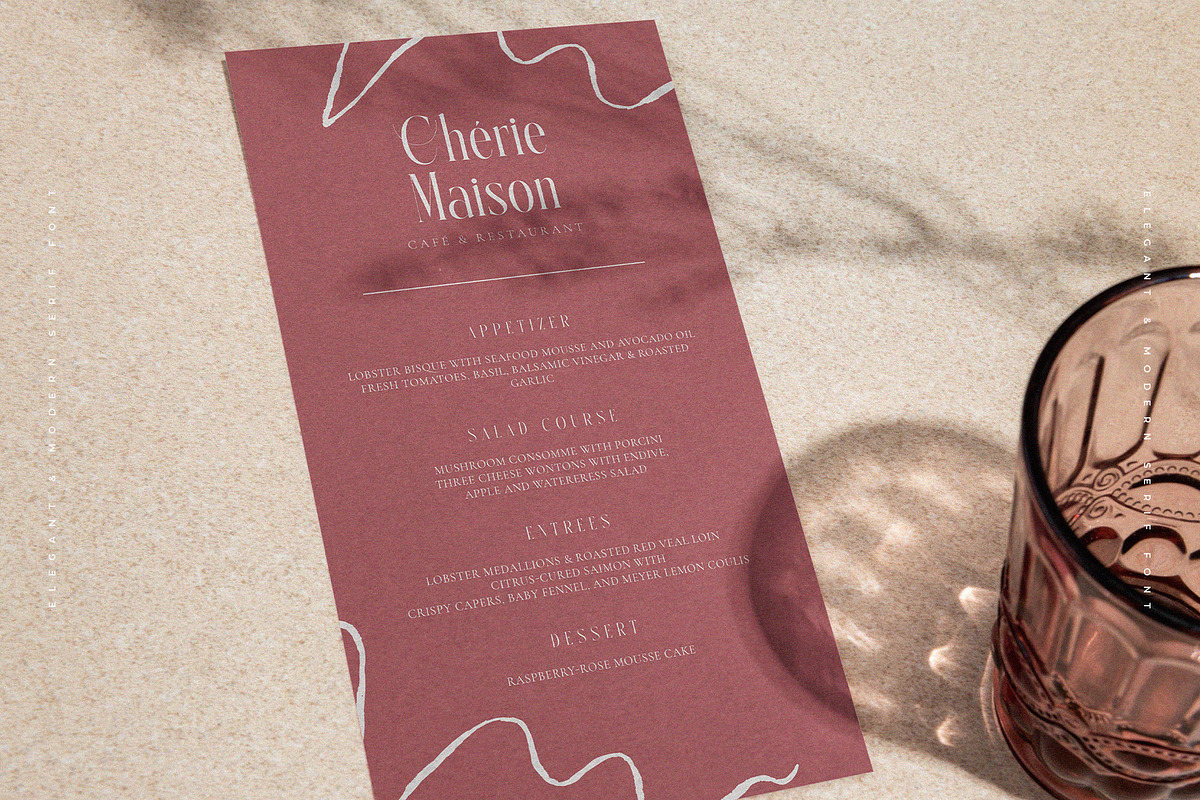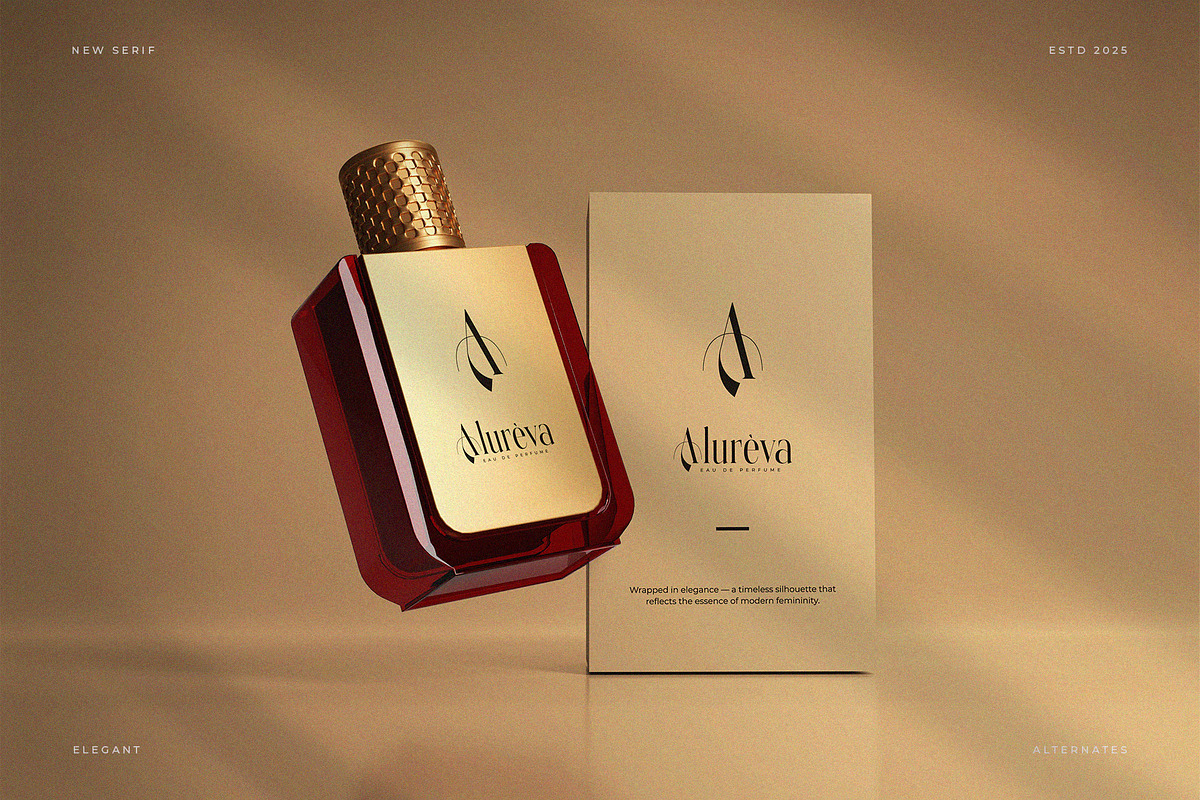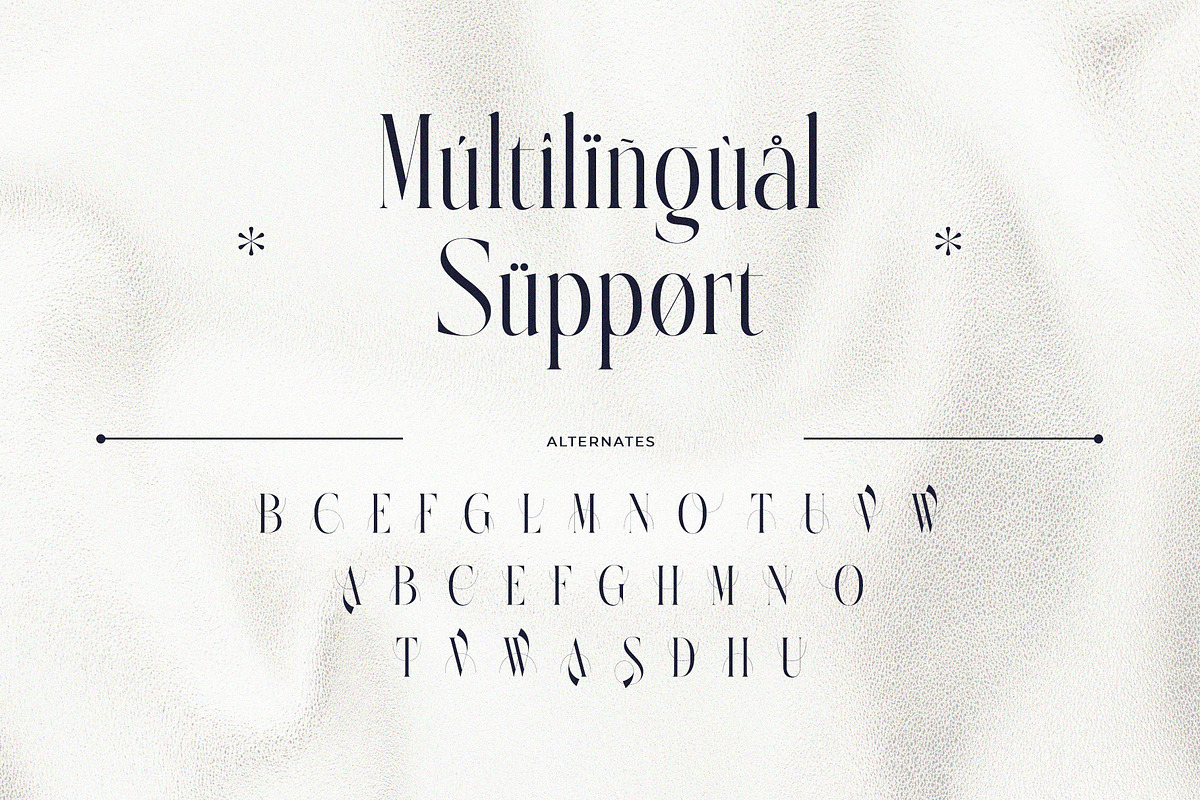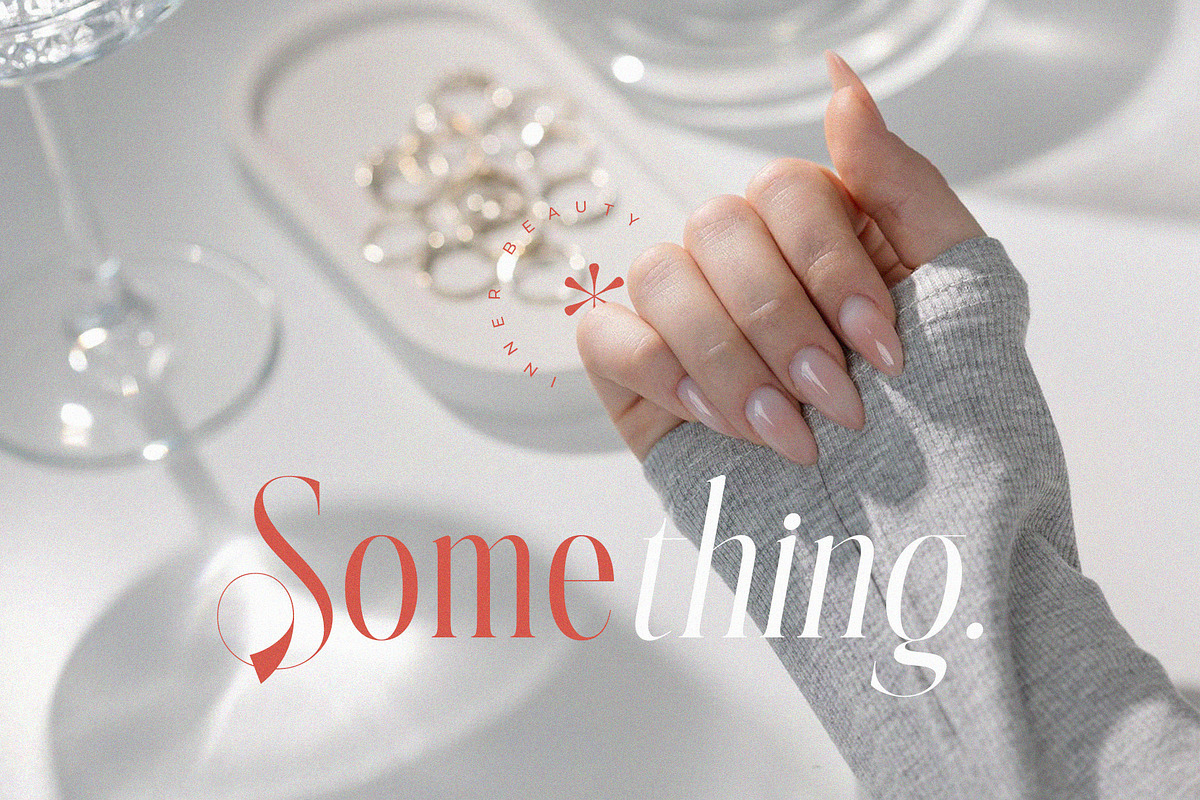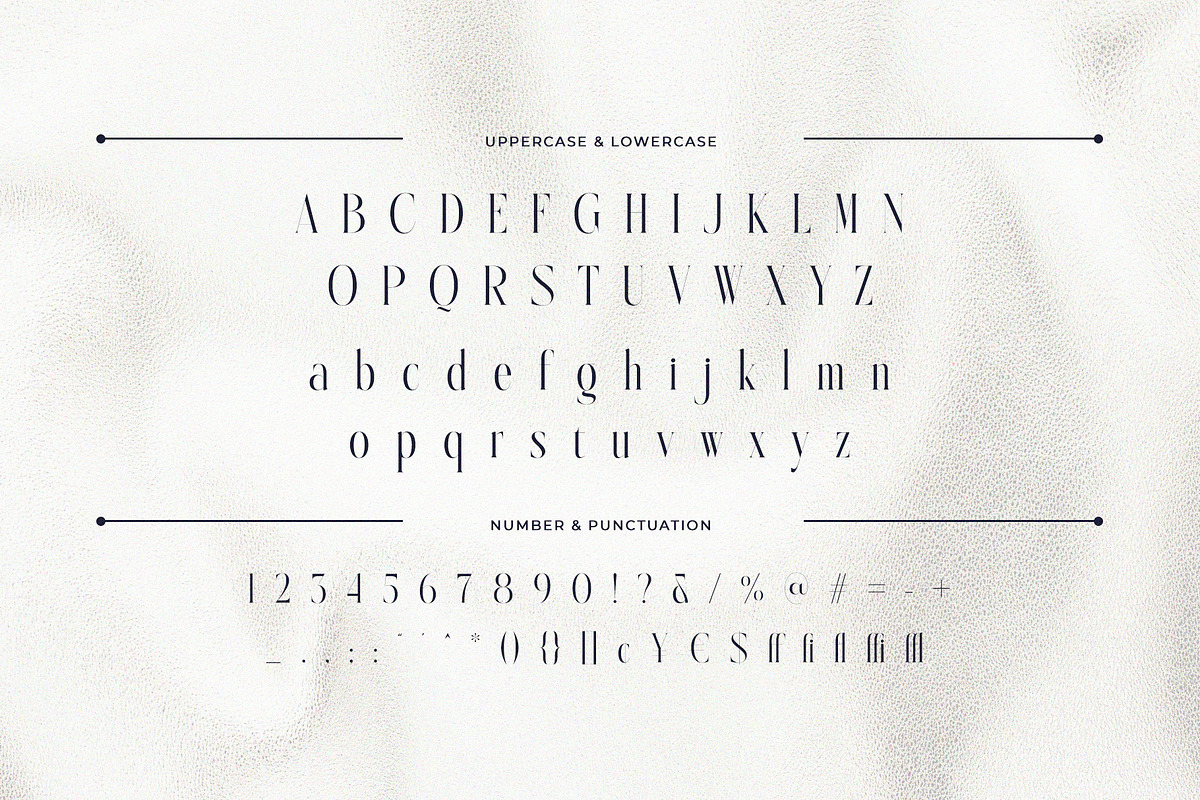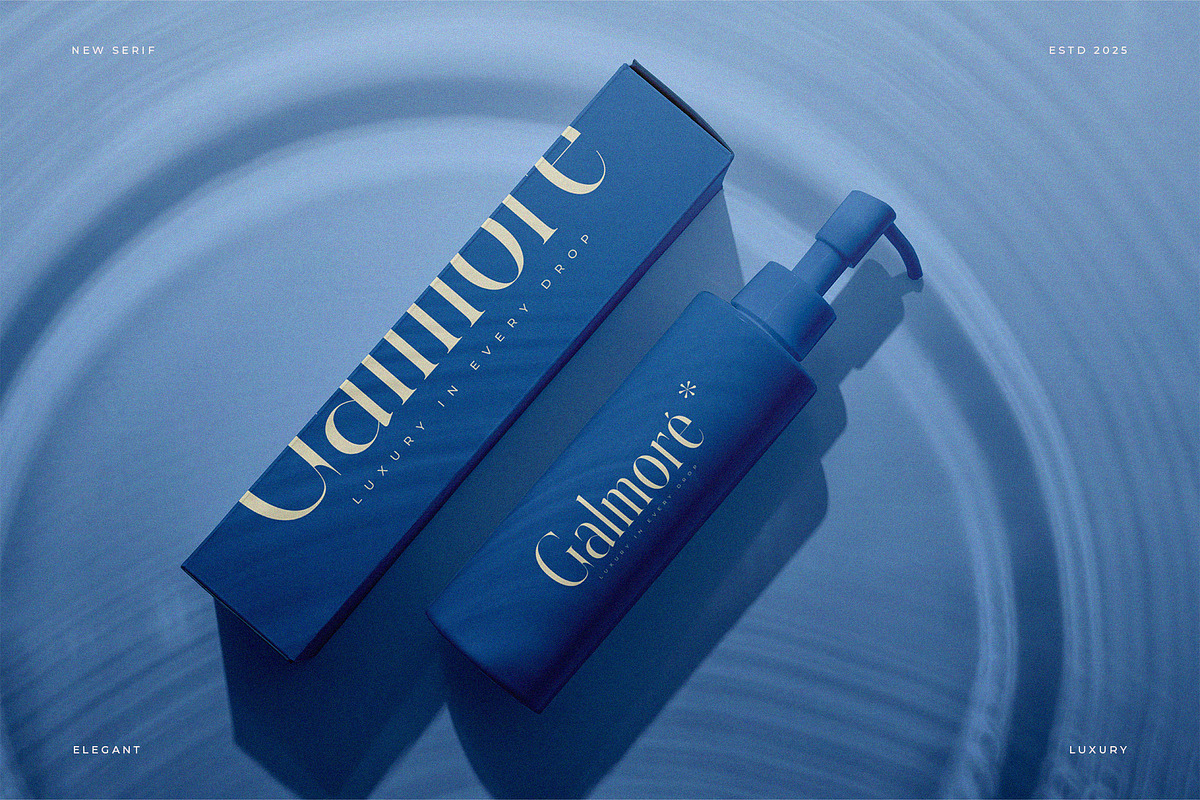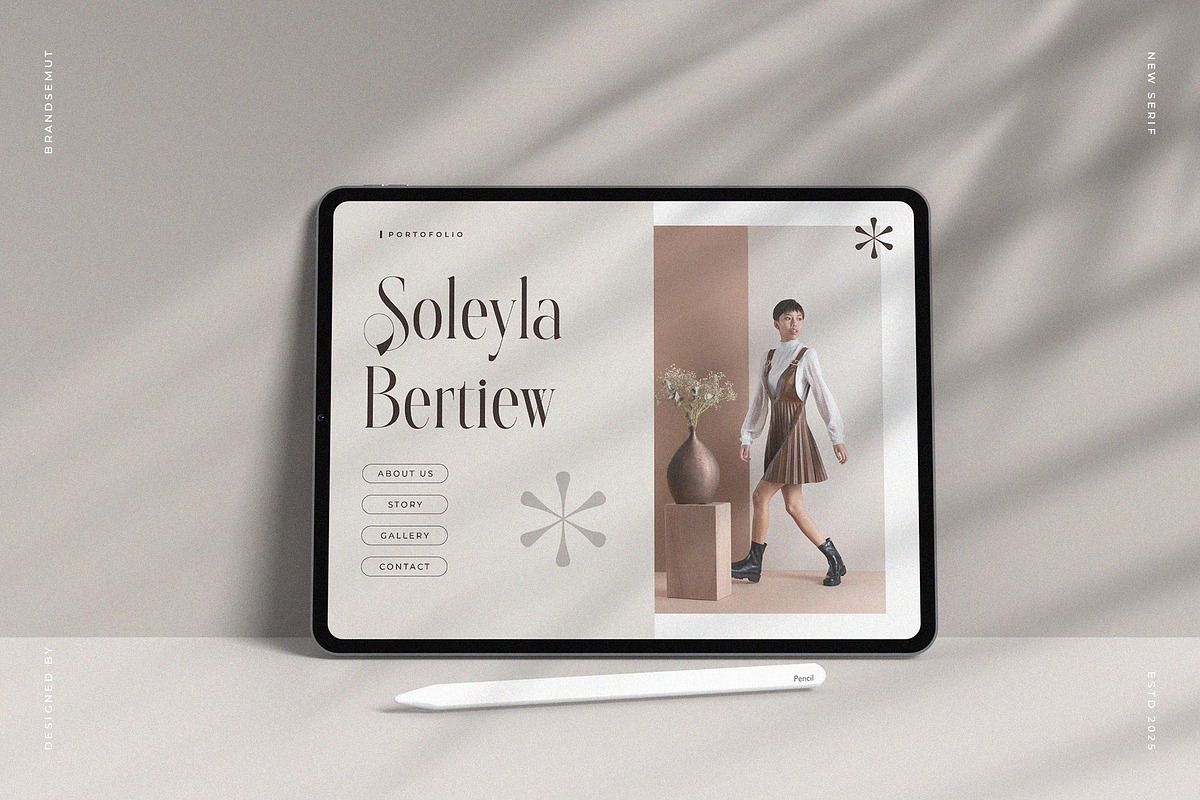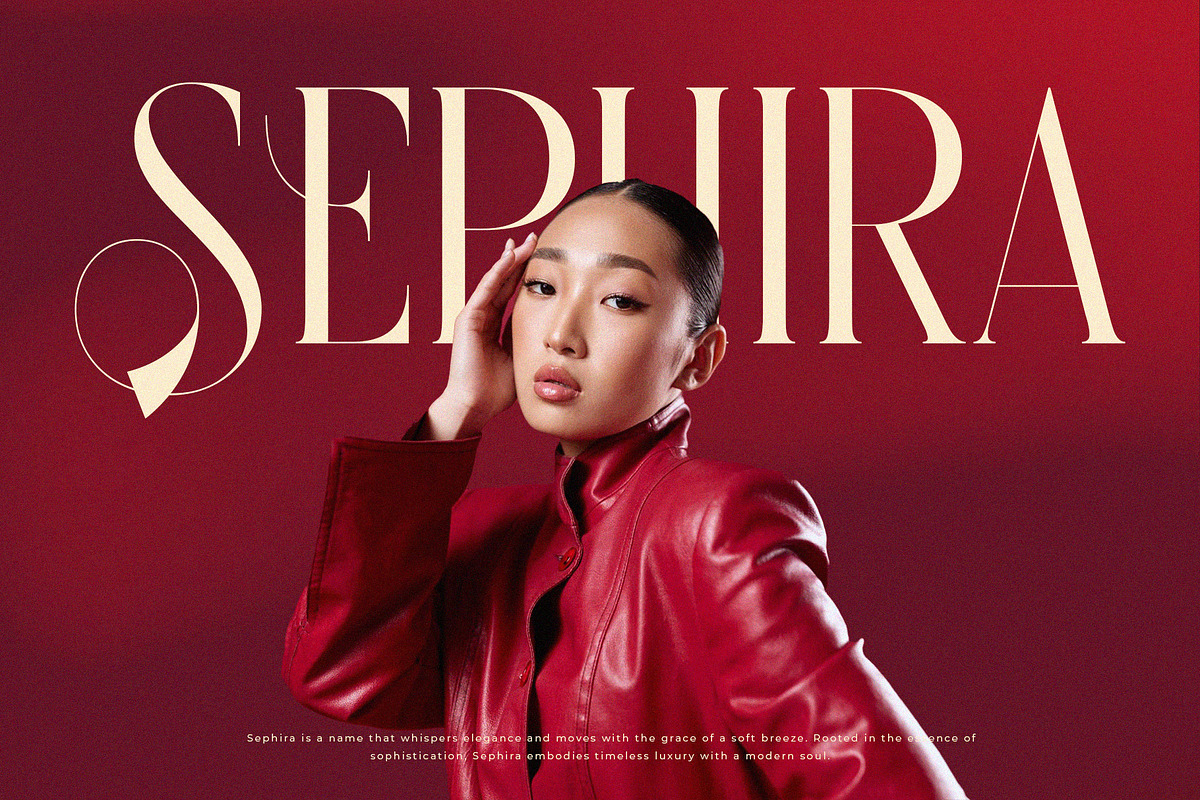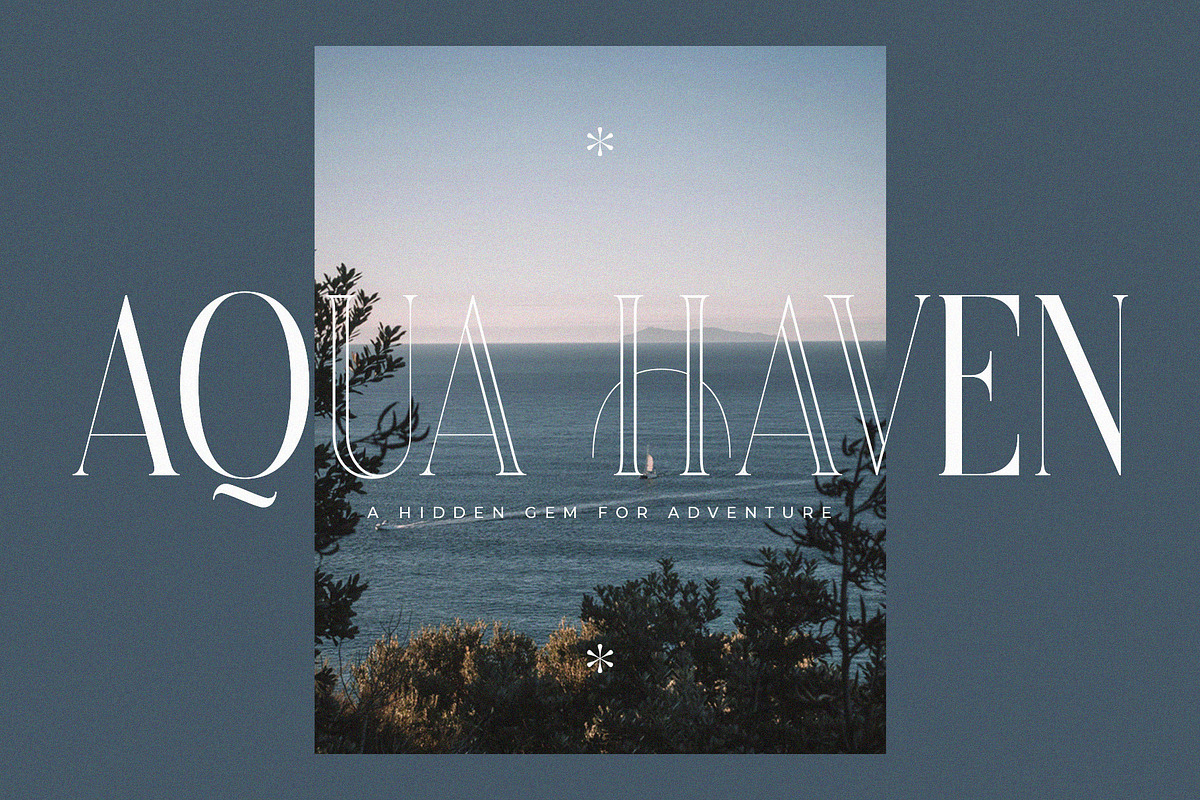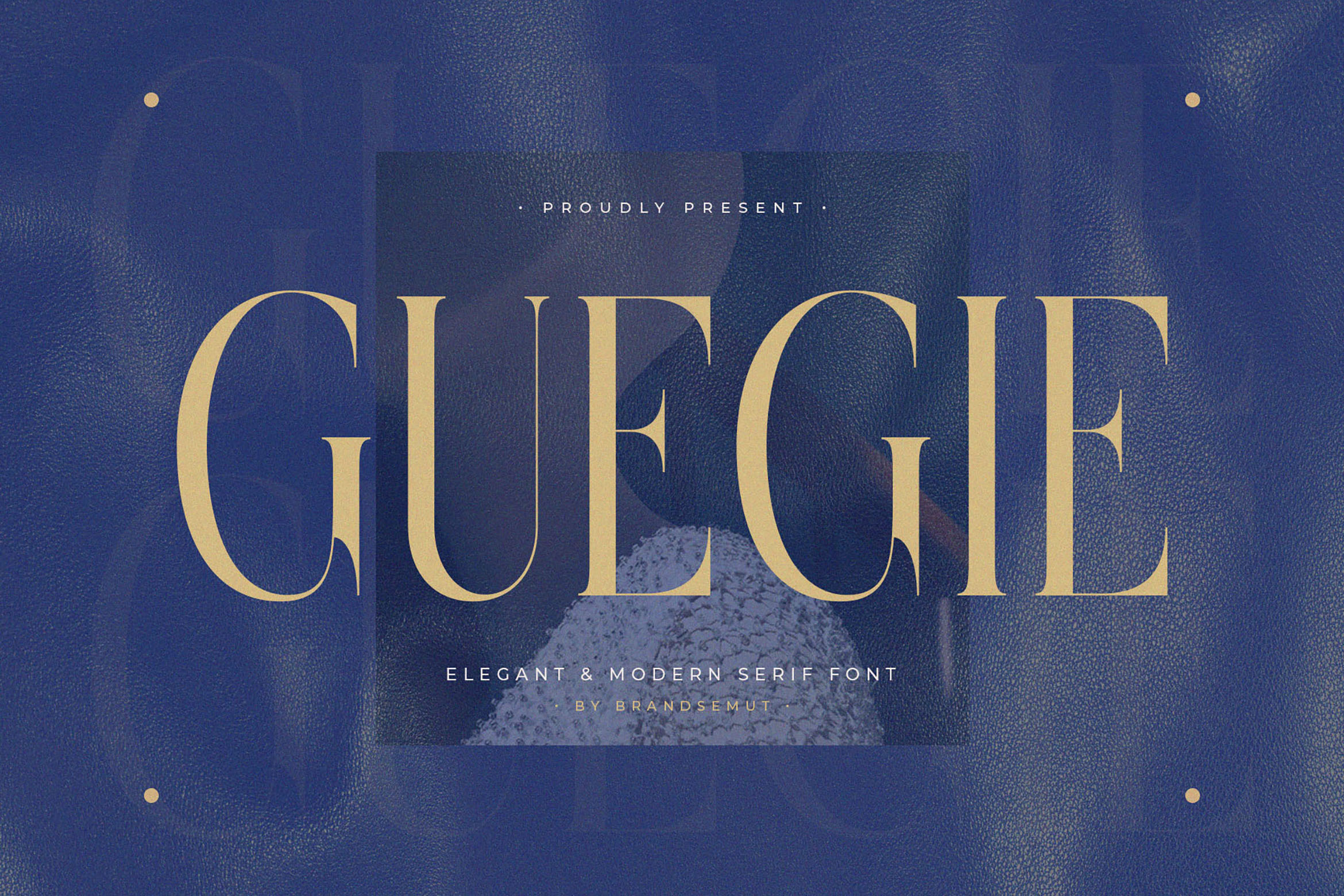
Guegie – Elegant & Modern Serif Font
Guegie – Elegant & Modern Serif Font for Luxury Branding and Timeless Typography
Guegie is an elegant and modern serif font meticulously crafted to deliver a luxurious, professional, and timeless impression. Combining balanced letter proportions with sharp typographic details, Guegie offers a contemporary aesthetic while preserving the essence of classic serif design.
With tall, refined letterforms, this typeface is perfect for a wide range of design applications such as luxury branding, editorial design, wedding invitations, corporate identity, and premium packaging. Each character is designed to ensure optimal legibility at small sizes while radiating elegance when used for large headlines.
- Complete uppercase & lowercase characters
- Artistic alternates & ligatures
- Perfect for: Logos, Branding, Magazine Headlines, Business Cards, Invitations, Product Packaging, Social Media Graphics, and more
With Guegie, you can create designs that exude elegance, sophistication, and premium quality—making it an ideal choice for designers who prioritize high-end aesthetics.